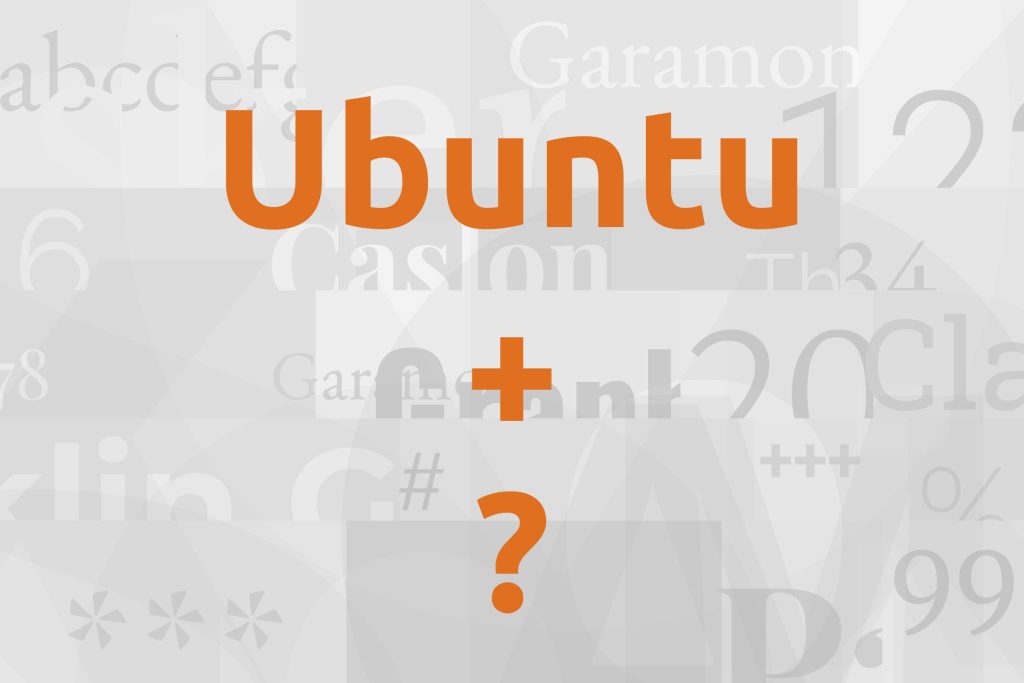
Ubuntu pairs great with Open Sans, Lora and Roboto. All 15 pairings are shown below in real rendered specimens, with the reason each one works.
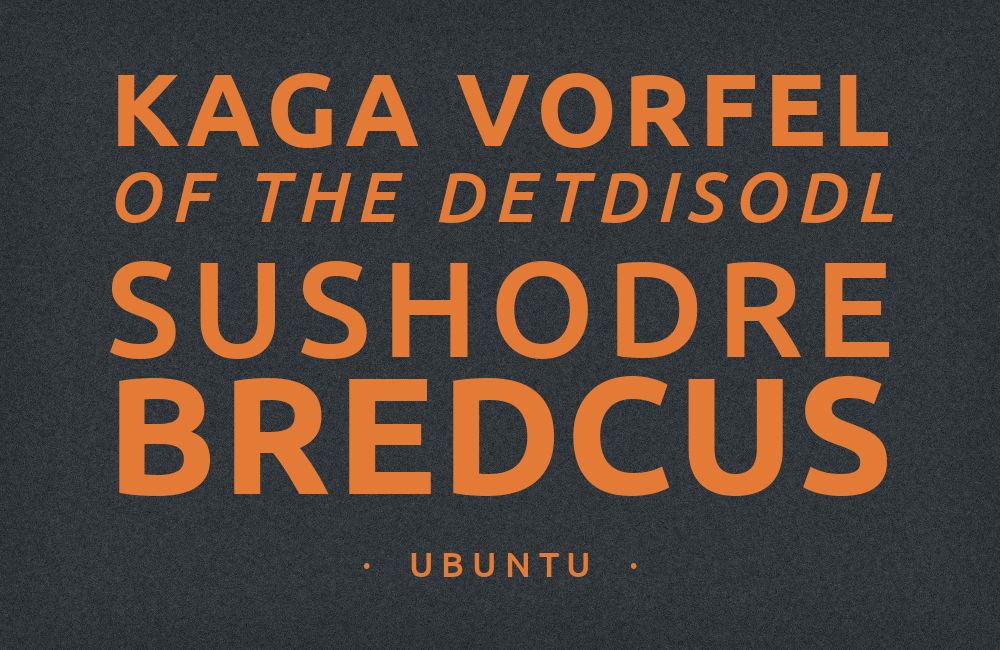
What fonts go with Ubuntu? The question is harder than it looks, because Ubuntu is not the neutral system sans people assume it is. It was engineered for screen clarity, but it carries a set of distinctive construction quirks that a partner font either has to answer or has to get out of the way of.
Canonical funded the family and the London foundry Dalton Maag drew it, releasing it as the default face of the Ubuntu operating system in Ubuntu 10.10 in October 2010, with additional styles and language coverage arriving through 2011. Its designers included Vincent Connare, who had earlier drawn Comic Sans and Trebuchet MS. The skeleton is humanist sans, not geometric, with curves that stay soft at the joins. A distinctive part of its detail work is the use of spurless forms on a, b, d, n and u. The family runs to thirteen styles including Light, Medium, Condensed and Monospace, and covers Latin extended, Greek polytonic and Cyrillic extended. Its spacing and kerning were tuned for body copy sizes, and everything in the design follows from that.
That tuning is the pairing problem in one sentence. Ubuntu is comfortable as a text face and confident as a headline face, so it volunteers for neither role automatically, and it will not sit quietly beside another humanist sans with similar bones. The evidence points two ways. Live sites and shipped identities pair Ubuntu with a screen-era neutral — Open Sans, Roboto, Lato — and let Ubuntu take the expressive half. Curated pairing sets more often propose serif contrast, from calligraphic text serifs to geometric slabs, which gives Ubuntu the interface role instead. Here are 15 fonts that pair well with Ubuntu, covering both approaches and the family’s own monospace.
Steve Matteson designed Open Sans under commission from Google and released it in 2011 as an open, upright humanist sans built for legibility at small sizes. Pagecloud recommends it beneath Ubuntu headings, and the reason is subtraction rather than contrast: Open Sans has a comparably large x-height but none of Ubuntu’s spurless stems, so it reads as the same size and the same temperature while volunteering no personality of its own. That makes the role split obvious. Put Ubuntu in headings, navigation and any element where the brand voice needs to register, and let Open Sans carry paragraphs, captions and help text underneath it. The combination is the low-risk default for product sites and documentation, and it survives at the small sizes where a more mannered body face starts to fight the layout.
2. Lora
The Cyreal type studio designed Lora, released in 2011, as a contemporary text serif with calligraphic roots — brushed curves, bracketed serifs and moderate stroke contrast built for comfortable reading rather than display drama. Figma includes it in its Ubuntu pairing set, and the logic is a clean division of properties. Ubuntu’s strokes are nearly monoline and its finish is mechanical; Lora’s strokes swell and taper and its serifs carry a written gesture. Neither face is trying to do the other’s job. Set Lora for article bodies, editorial pull quotes and any long-form content where readers stay on the page for minutes rather than seconds, and keep Ubuntu for headings, UI chrome and metadata. The pair suits blogs, knowledge bases and technical publications that want warmth in the reading column and precision everywhere else.
3. Roboto
Christian Robertson designed Roboto for Google and released it in 2011 as Android’s system typeface, built on a mechanical skeleton with largely geometric forms. The documented recommendation assigns Ubuntu Bold to the headline and Roboto to the running text. The difference is temperament: Roboto’s curves are tighter and more controlled, Ubuntu’s rounder and more expressive. Ubuntu at display weight has enough character to anchor a page, while Roboto recedes across thousands of words. Use it for dashboards, Android-adjacent products and anything where a familiar interface neutral is an asset.
4. Lato
Łukasz Dziedzic designed Lato and released it in December 2010 as a humanist sans with softly rounded details and a warm, semi-formal tone that sits between a plain grotesque and something more decorative. Live-site evidence, rather than style-guide advice, puts it with Ubuntu: independent co-usage data records the two running together on production websites. The structural reason is proximity plus restraint — Lato matches Ubuntu closely in x-height and overall colour, so a page mixing them holds one consistent grey, but Lato’s stems keep conventional spurs where Ubuntu’s are spurless, giving the eye a way to tell heading from body without a size jump. Reach for it when a product needs to feel approachable rather than institutional: marketing pages, onboarding flows and consumer apps where Open Sans would read as slightly too corporate.
5. Merriweather
Eben Sorkin designed Merriweather for Sorkin Type as a text serif shaped specifically for screen reading, with a very large x-height, short sturdy serifs and slightly condensed letterforms that keep line lengths economical. It has been documented running alongside Ubuntu on a working design portfolio, and the pairing holds together because both faces were solved for the same constraint. Merriweather does not borrow its authority from print history the way a revival serif does; its aperture and weight distribution are tuned for pixels, so it adds serif texture to a page without pushing the system toward a bookish register. Set Merriweather for body copy and Ubuntu for headings, navigation and interface labels. The combination fits documentation sites, long-form editorial and any product where readers alternate between scanning and sustained reading.
6. Montserrat
Julieta Ulanovsky designed Montserrat and published it on Google Fonts in 2011, drawing it from early-twentieth-century signage and shopfront lettering in the Montserrat neighbourhood of Buenos Aires. The two faces are documented together in a real broadcast identity, with Montserrat set in the channel logo and Ubuntu running the on-screen graphics package underneath it. That division gives the broad geometric mark to Montserrat and the smaller on-screen text to Ubuntu. Use Montserrat for logotype, section titles and large display weight, and hand everything functional — labels, lower thirds, body text, captions — to Ubuntu. It is a strong pairing for media brands, event graphics and video-heavy products.
7. Cabin
Pablo Impallari designed Cabin as a humanist sans in the tradition of Edward Johnston and Eric Gill, with rounded forms, slightly condensed proportions and a quietly formal bearing. Pairing it with Ubuntu is a sans-on-sans combination separated by detail rather than by category, which is a harder trick and worth understanding before using it. Cabin’s letterforms are conventional in exactly the places Ubuntu’s are not — normal spurs, upright terminals, a more traditional aperture on c and s — so setting them together reads as one type system with a formal register and an informal one inside it. Give Cabin the body text and Ubuntu the headings, or invert it for a more classical feel. It works for institutional and educational sites that want humanist warmth without the serif commitment.